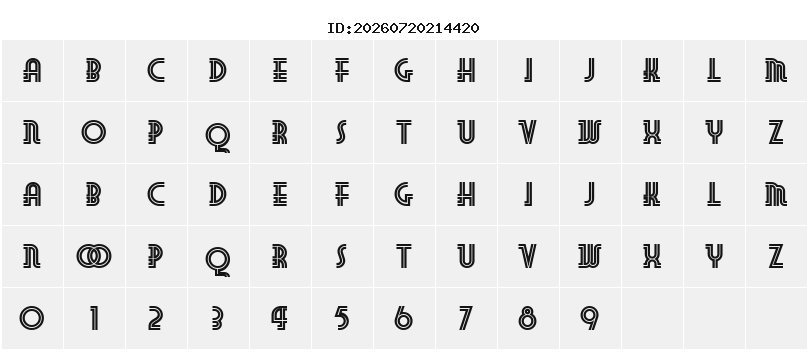
• Font Name: Foo Bar Inline NF
• Designer: Nick Curtis
About Foo Bar Inline NF.ttf
Foo Bar Inline NF.ttf is a modern, elegant sans-serif font designed for ultimate readability and visual harmony. Perfect for branding, headlines, web design, and print materials.